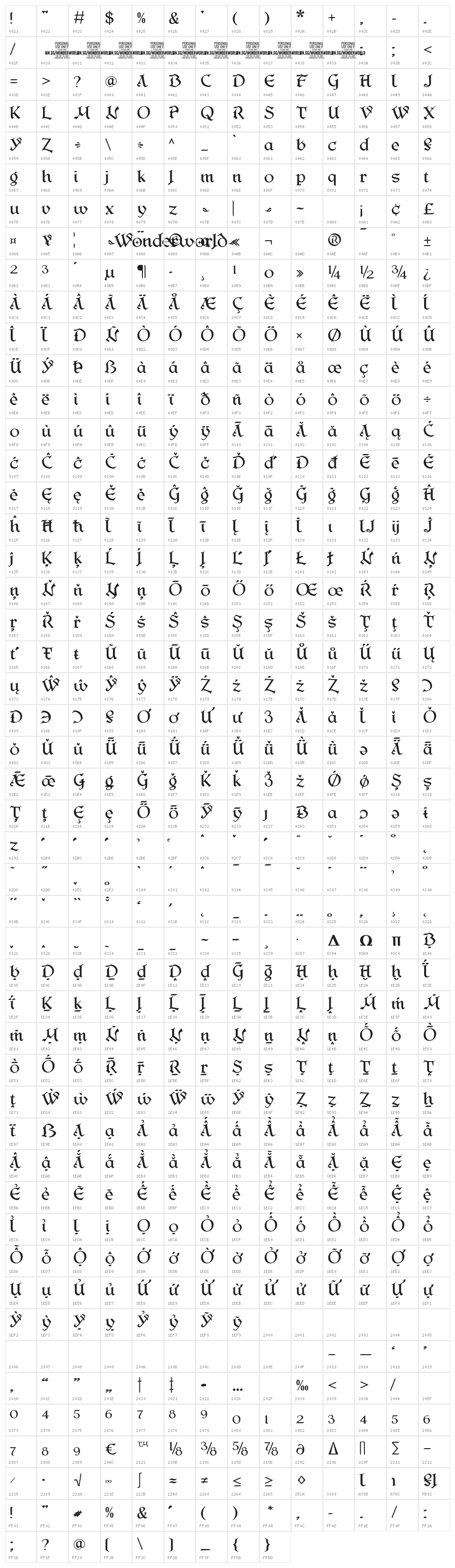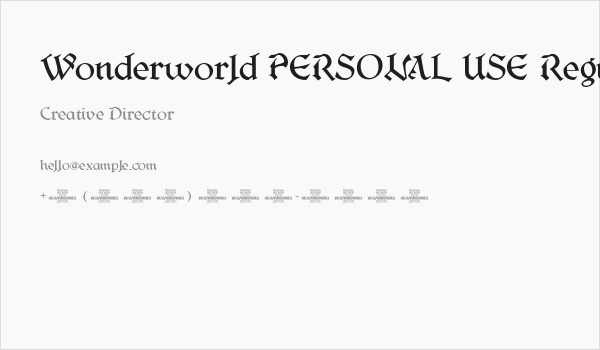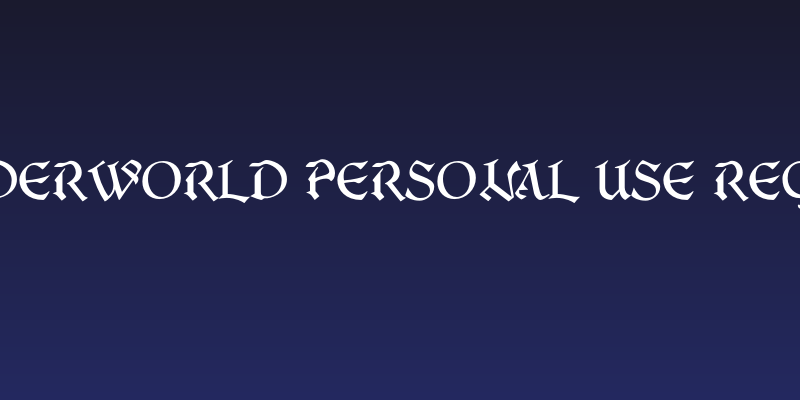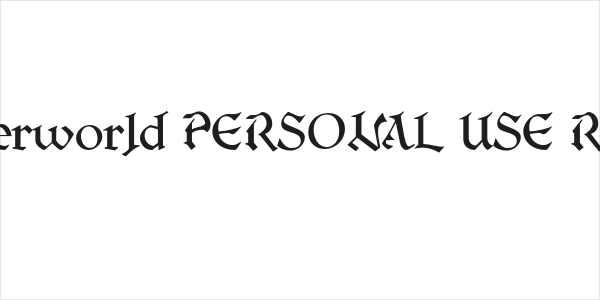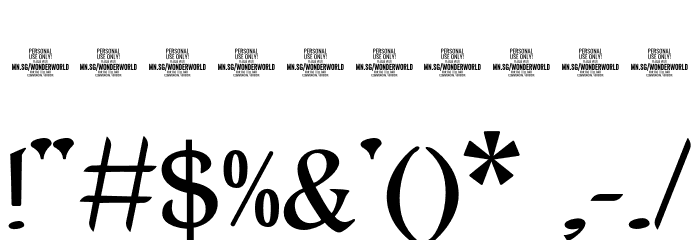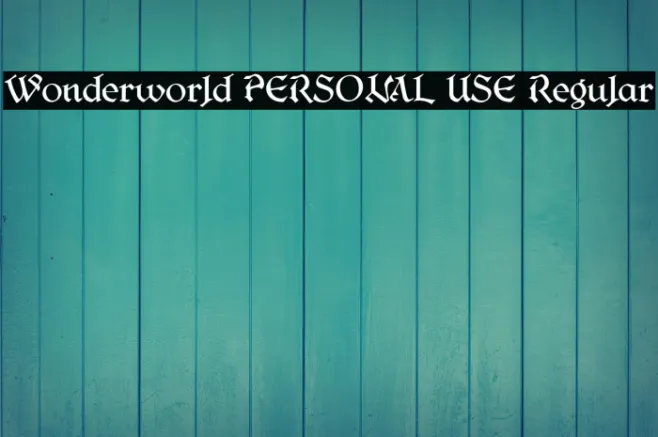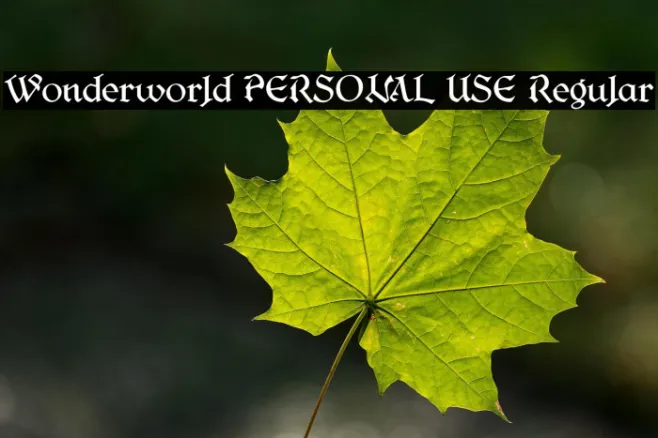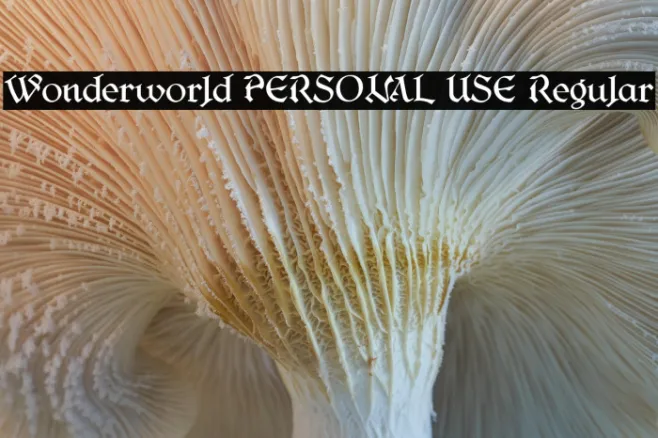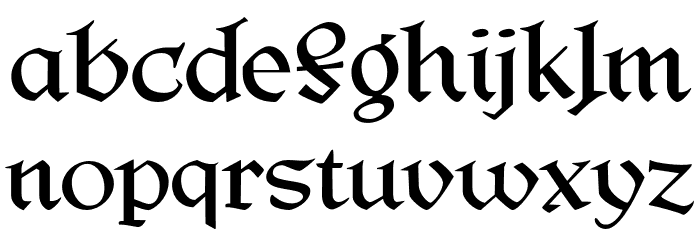
Wonderworld PERSONAL USE Regular Font
Wonderworld PERSONAL USE Regular Description
This font features a distinct blackletter style, characterized by its sharp, angular lines and ornate details. The uppercase letters exhibit a strong, bold presence with intricate serifs and flourishes, while the lowercase letters maintain a consistent style with slightly less ornamentation. The numerals and special characters are designed to match the overall aesthetic, providing a cohesive look. This font's historical and dramatic appearance makes it suitable for projects that require a touch of elegance and tradition.
| Overall Style | Vintage |
| Use Case | Headlines, Logos, Decorative text |
| Proposed Projects | Ideal for use in historical documents, certificates, posters, and branding that requires a classic and dramatic touch. |